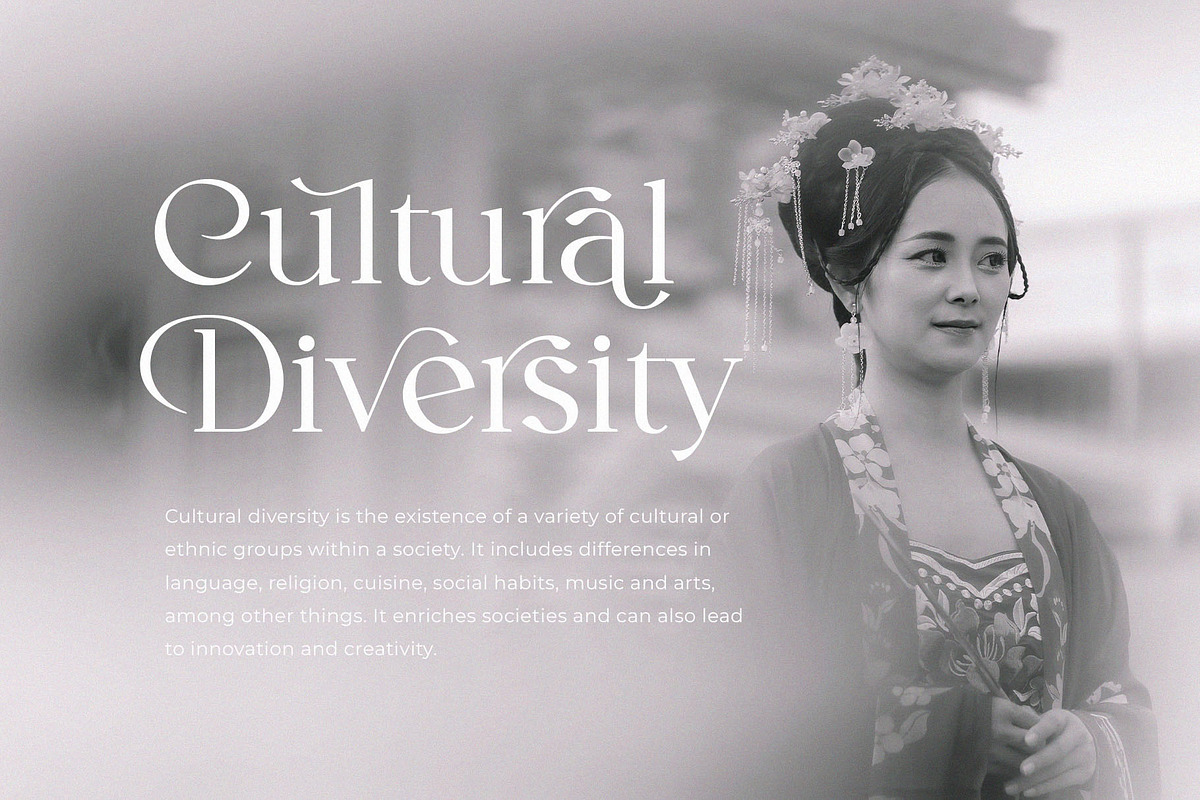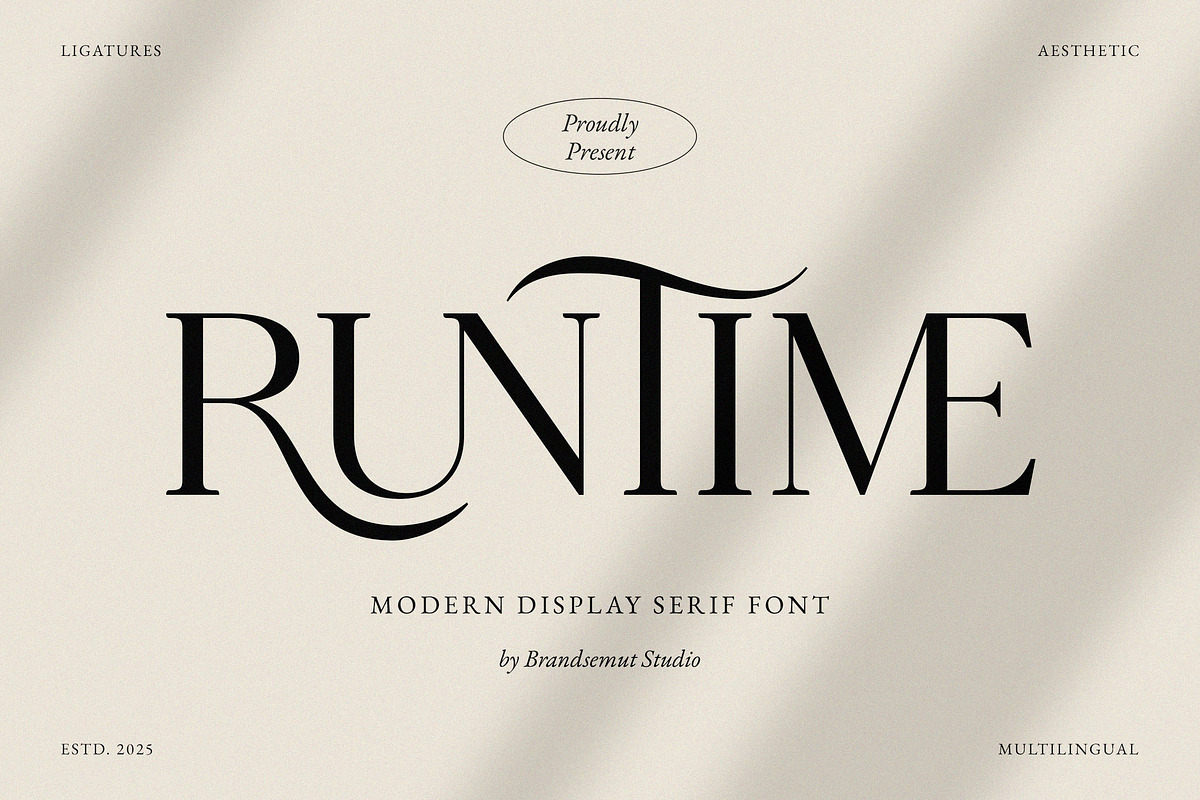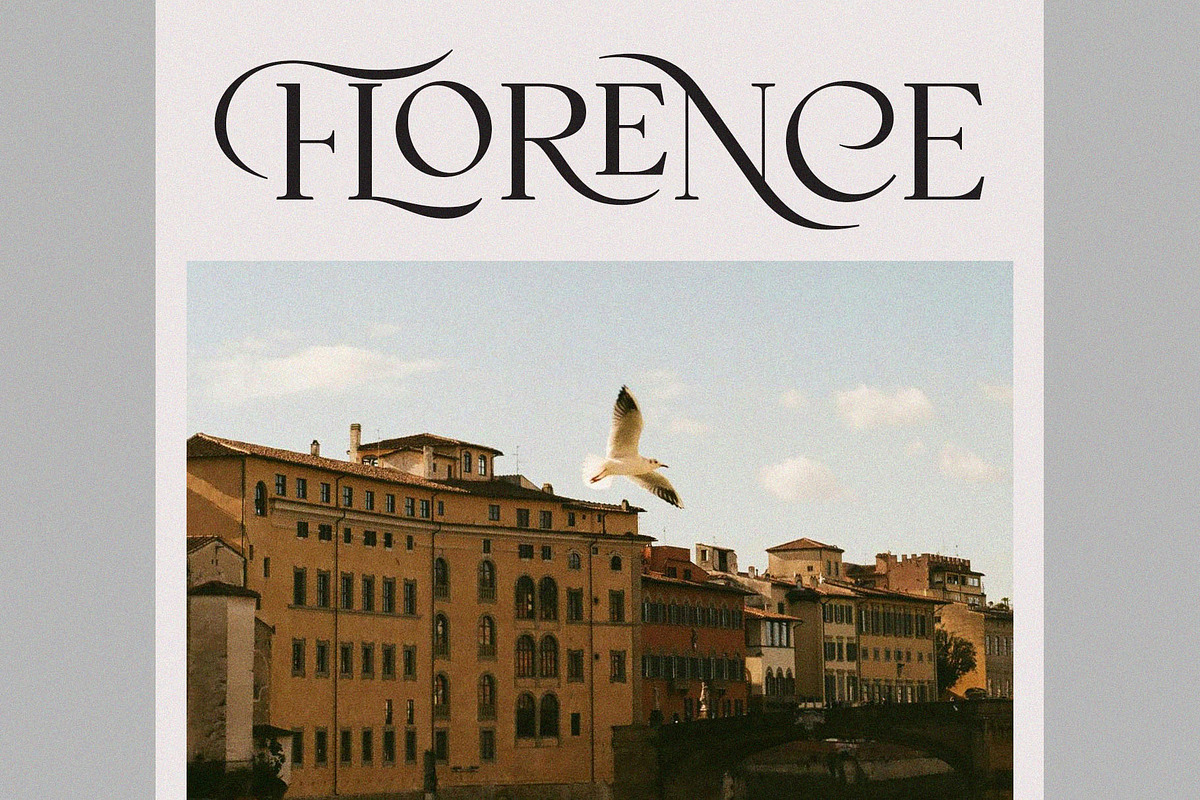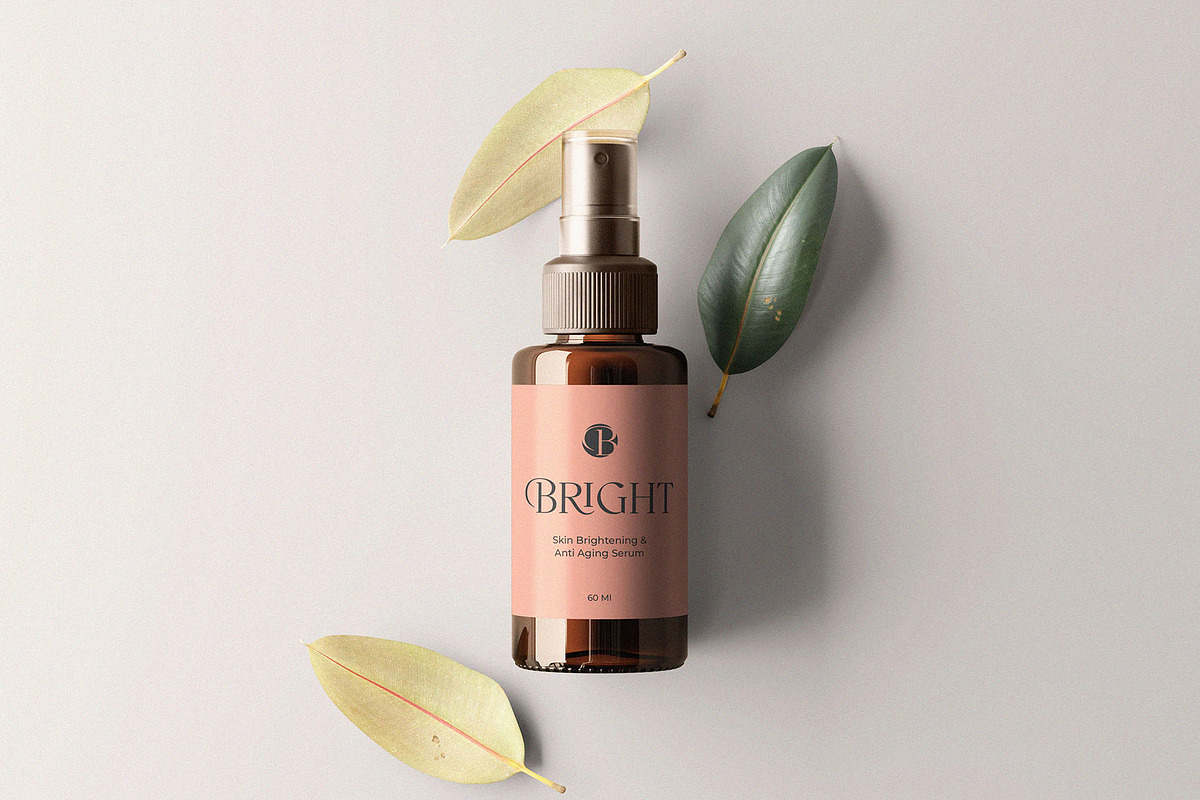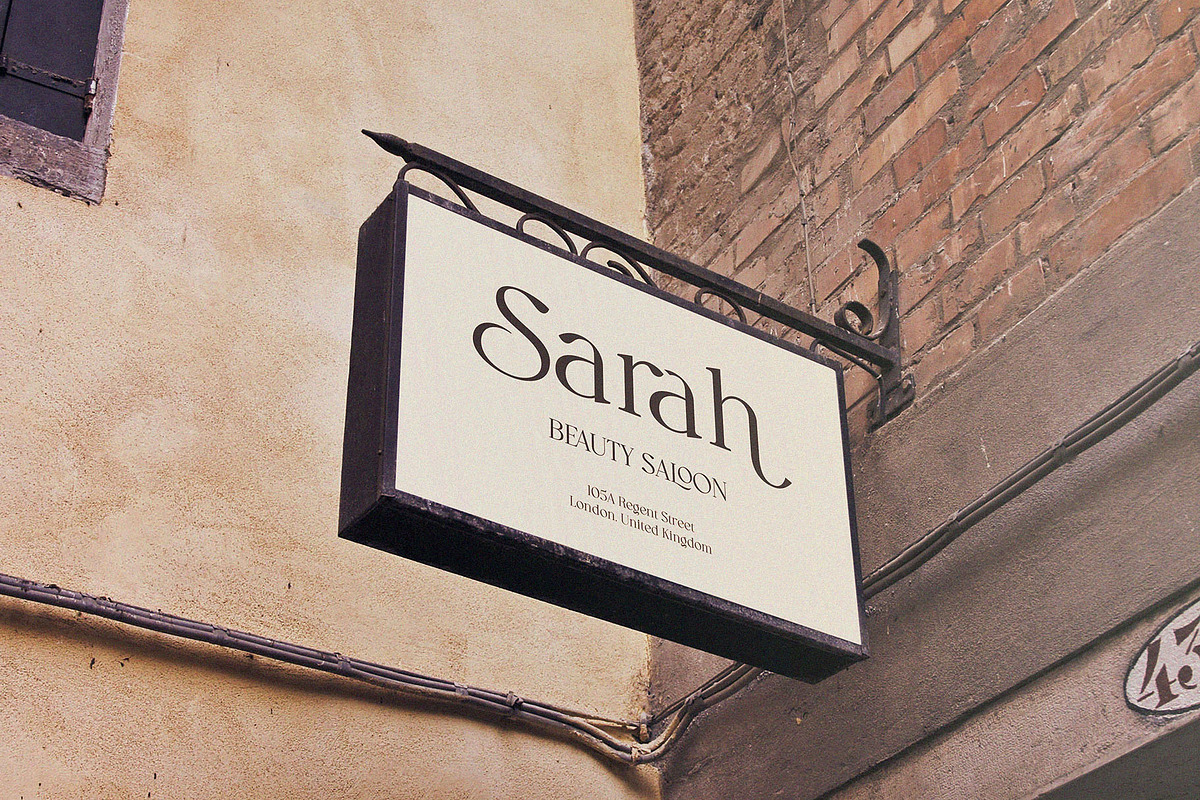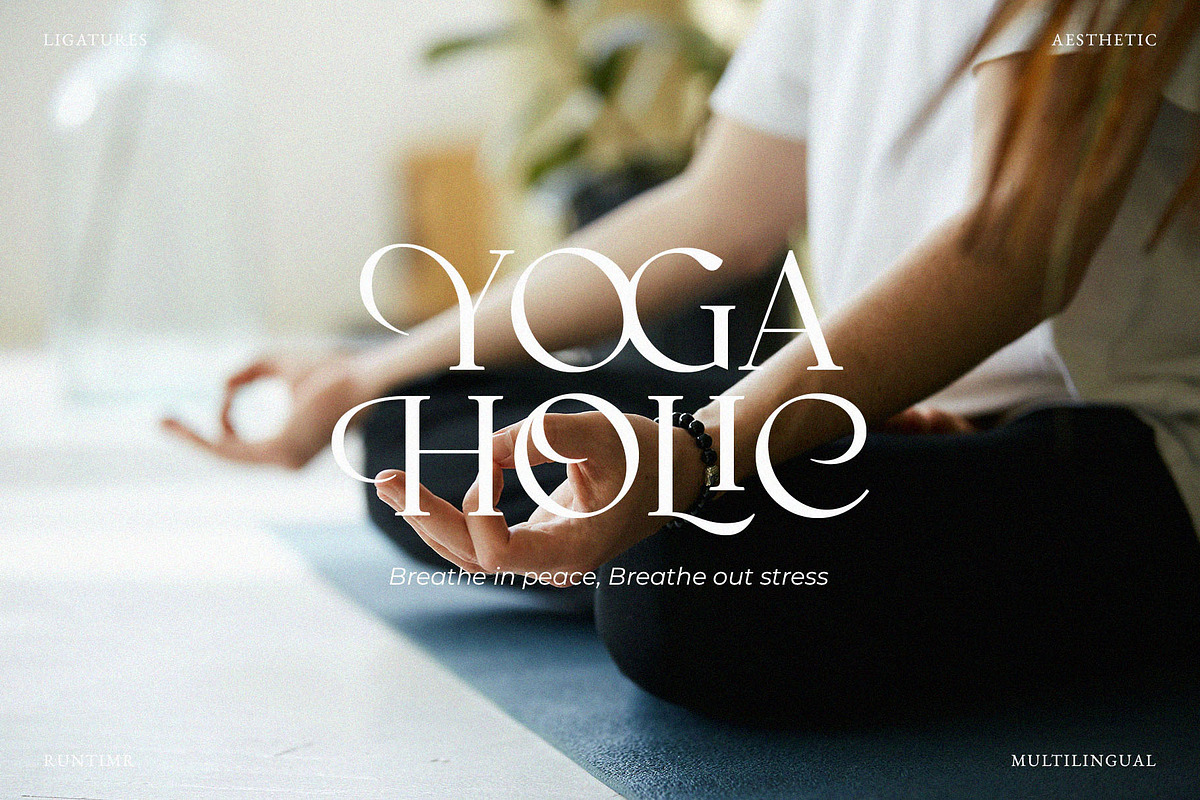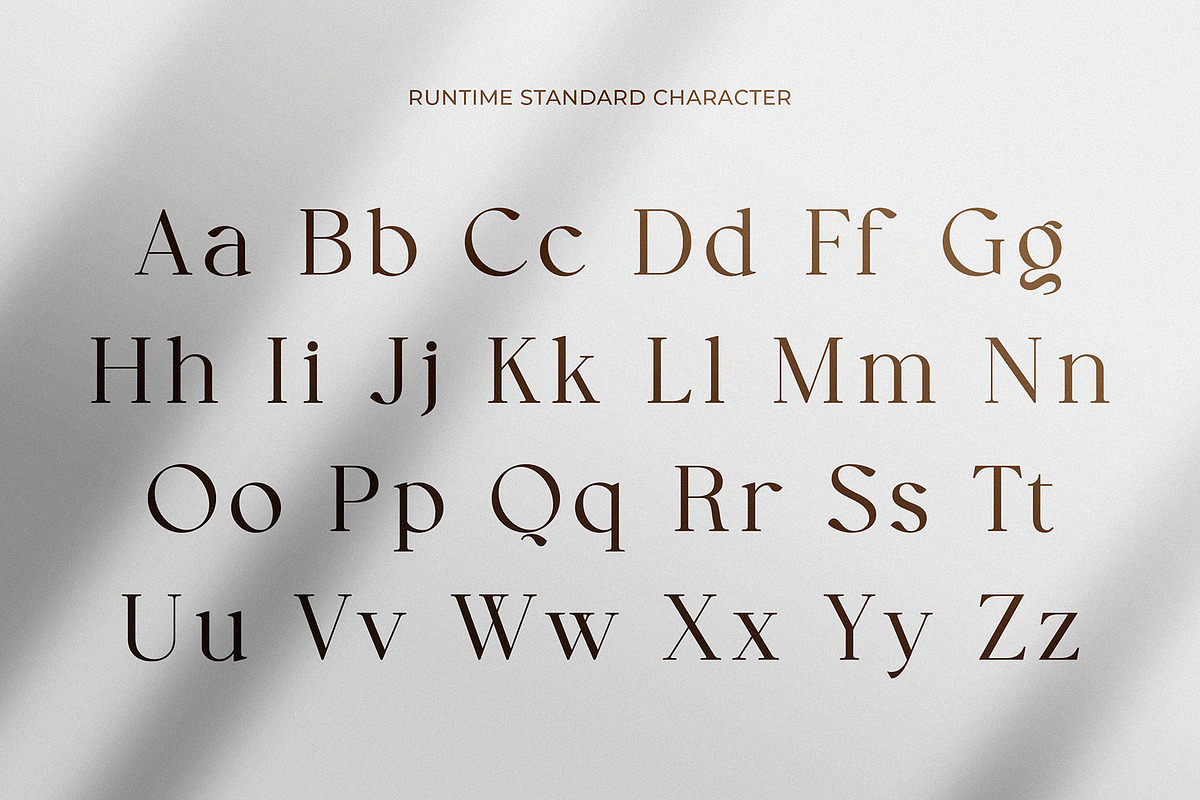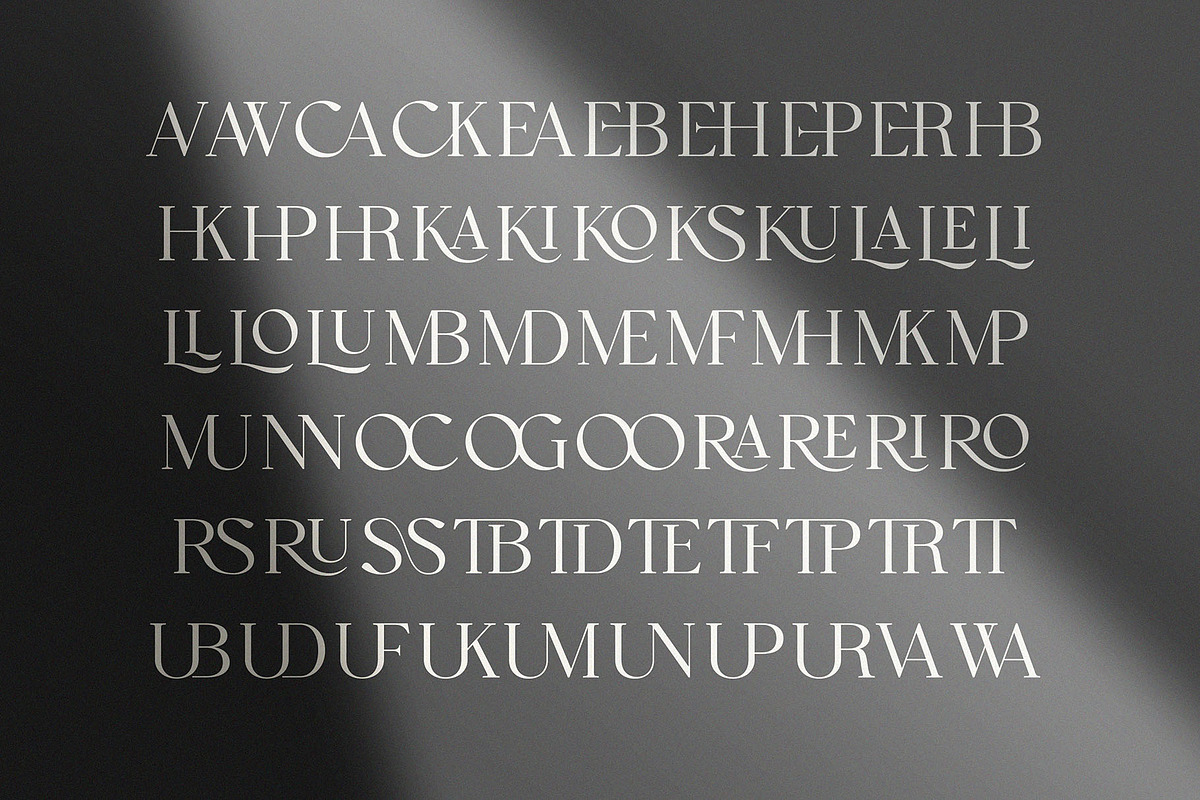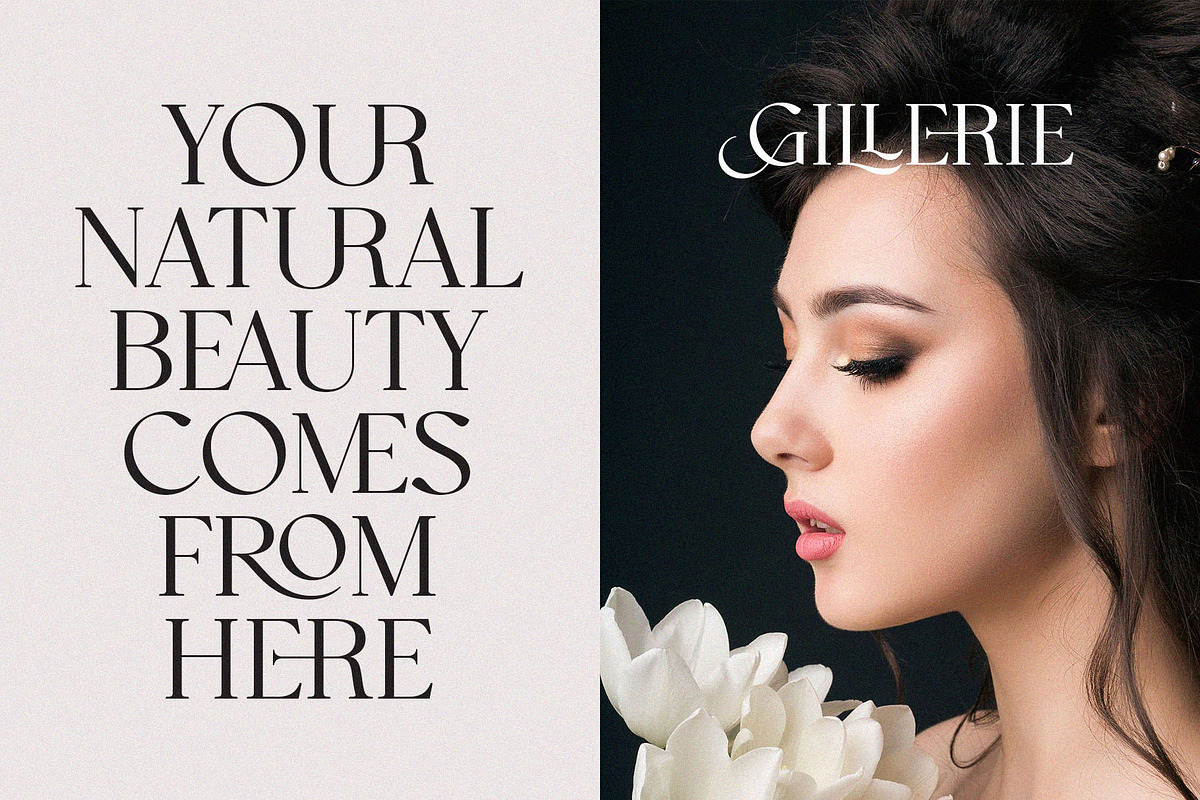
Runtime - Modern Display Serif Font
Introducing Runtime Modern Display Serif Font. Runtime is a modern and classy typeface, best used as a display for headings, logos, branding, magazines, product packaging and invitations. Runtime come with clean lines and smooth curves give any project an extra touch of class.